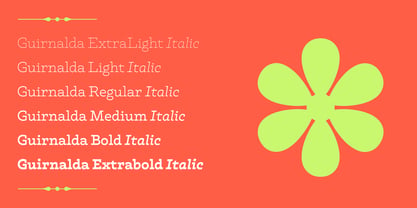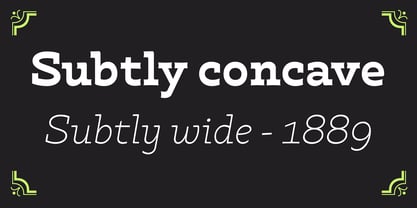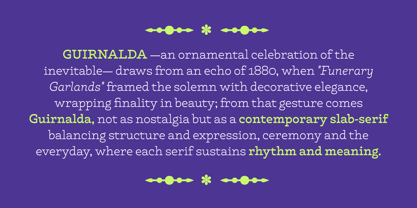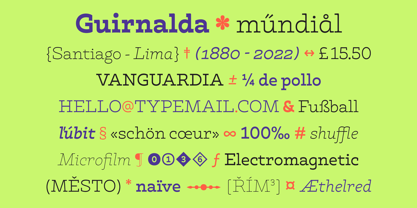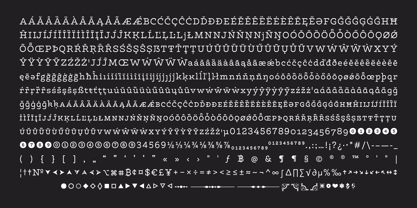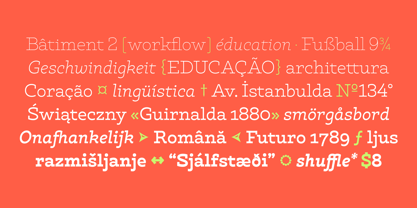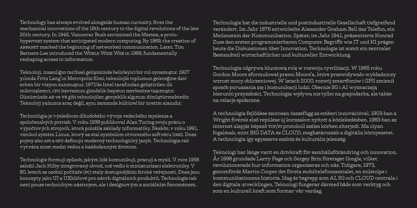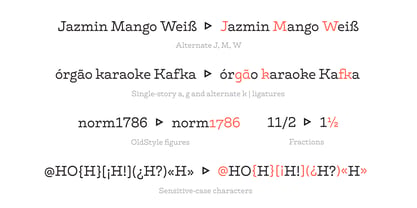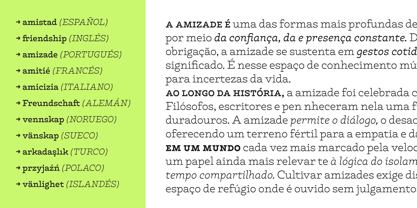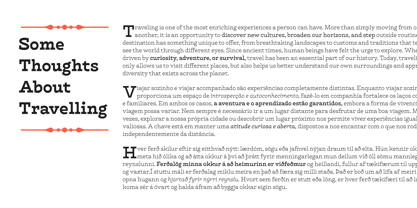
Guirnalda
La familia tipográfica Guirnalda fue diseñada por Alexandra Grau y publicada por Blaze Type. Guirnalda contiene 9 estilos. Más información sobre esta familia
Guirnalda is a slab serif family built for long-form reading, where rhythm, texture and small-size performance matter most.
Its origin is a historical curiosity: a set of wide-serifed display characters found in an 1880 pamphlet titled Guirnalda fúnebre ("Funeral Garland"). That distinctive width became the driving question of the design — how wide can letters be while still flowing rhythmically through dense blocks of text?
Guirnalda comes in 6 weights with matching italics, supports an extensive range of Latin-based languages, and includes ligatures, stylistic alternates, small caps and ornaments. It shines in editorial design — newspapers, magazines and books.